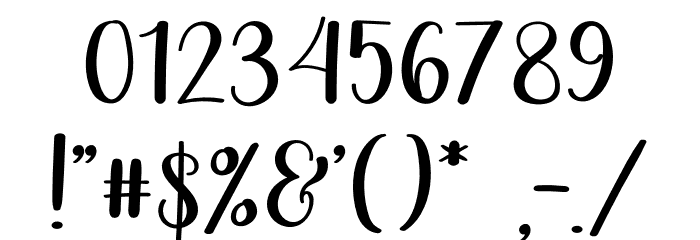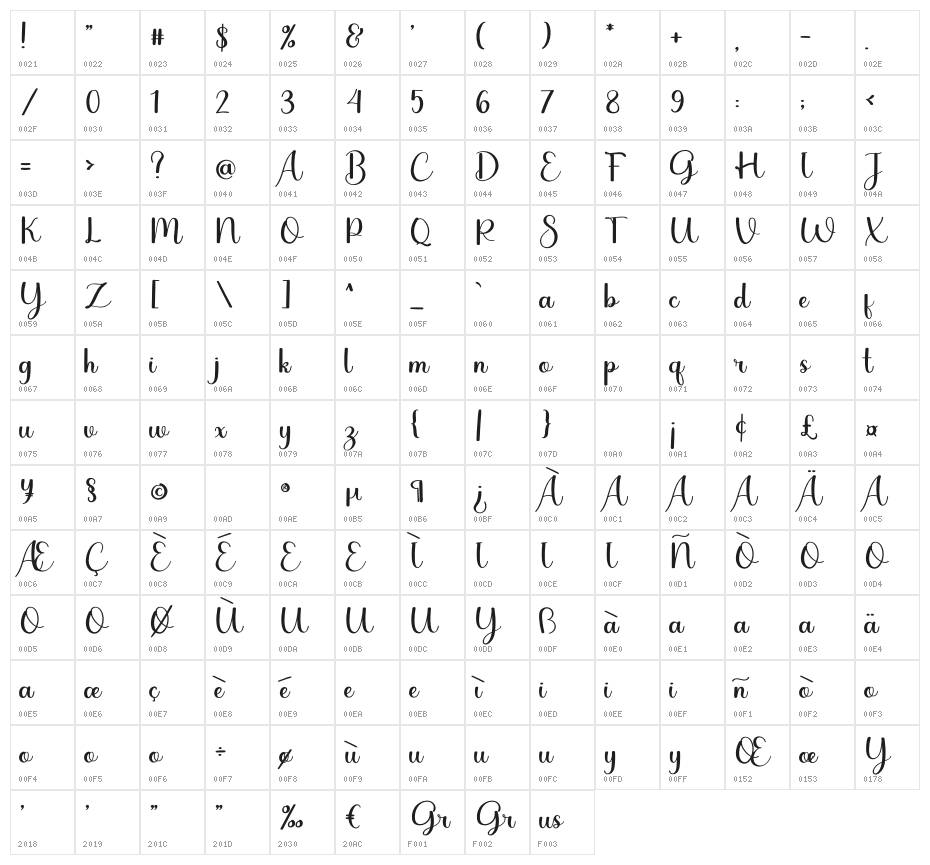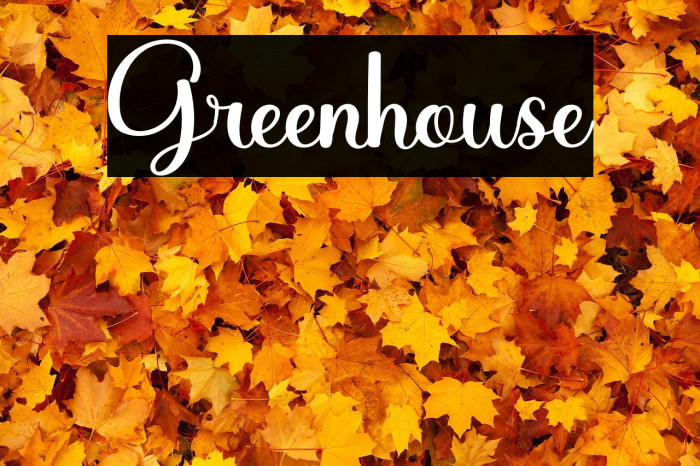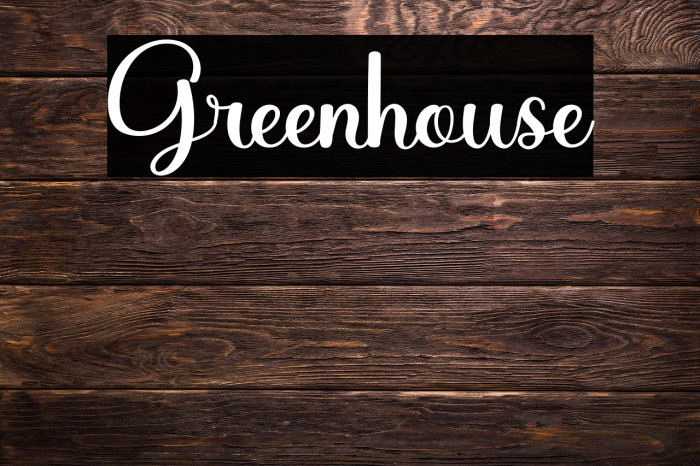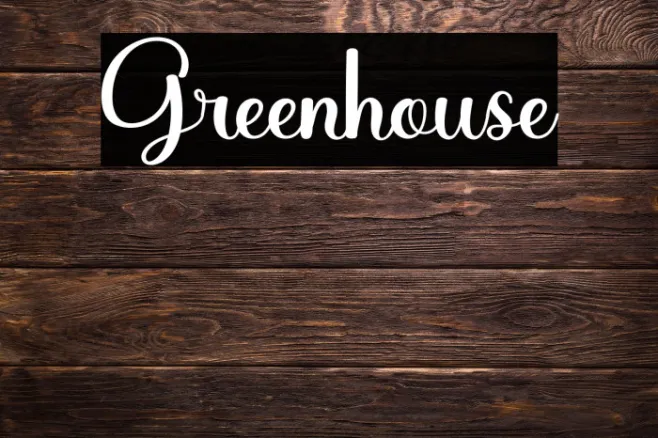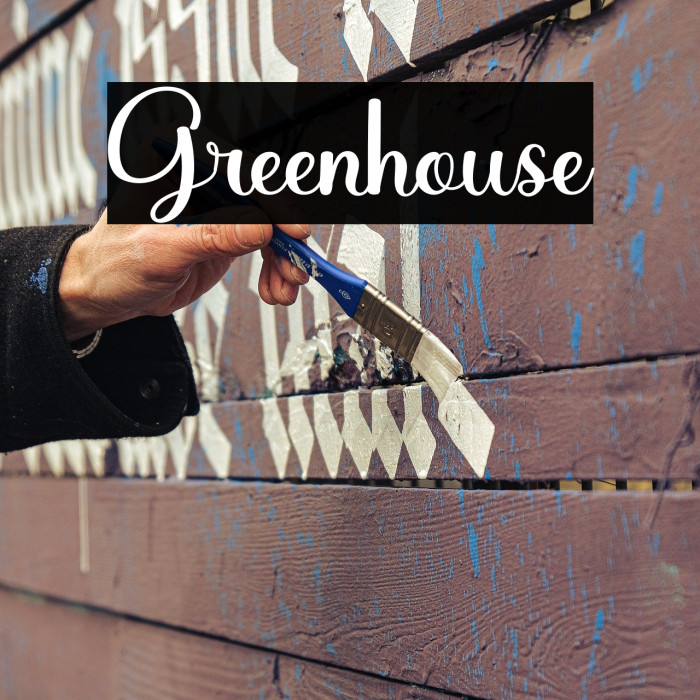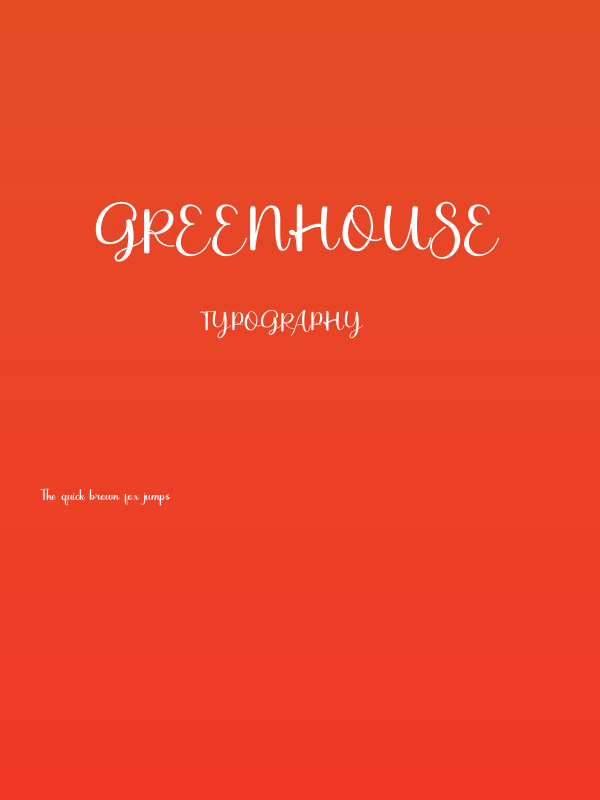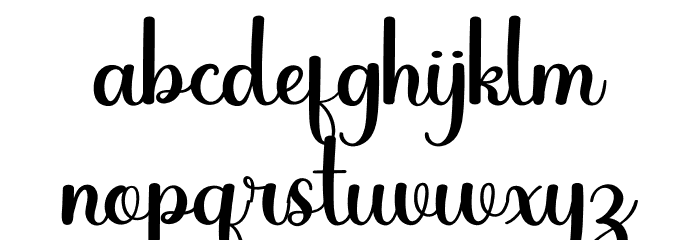
Greenhouse Font
Greenhouse Description
This font features a playful and elegant script style with a handwritten appearance. The uppercase letters are characterized by their flowing, cursive lines and gentle curves, giving them a whimsical yet sophisticated look. The lowercase letters maintain a consistent style, with smooth connections and a slightly more compact form. The numerals are clear and legible, matching the overall aesthetic with their rounded edges and slight slant. Special characters are thoughtfully designed to complement the alphabet, ensuring a cohesive appearance across all glyphs. This font's charm lies in its ability to convey both elegance and approachability, making it suitable for a variety of creative applications.
| Use Case | Logos, Invitations, Social Media |
| Proposed Projects | Ideal for wedding invitations, greeting cards, branding projects, and social media graphics. |